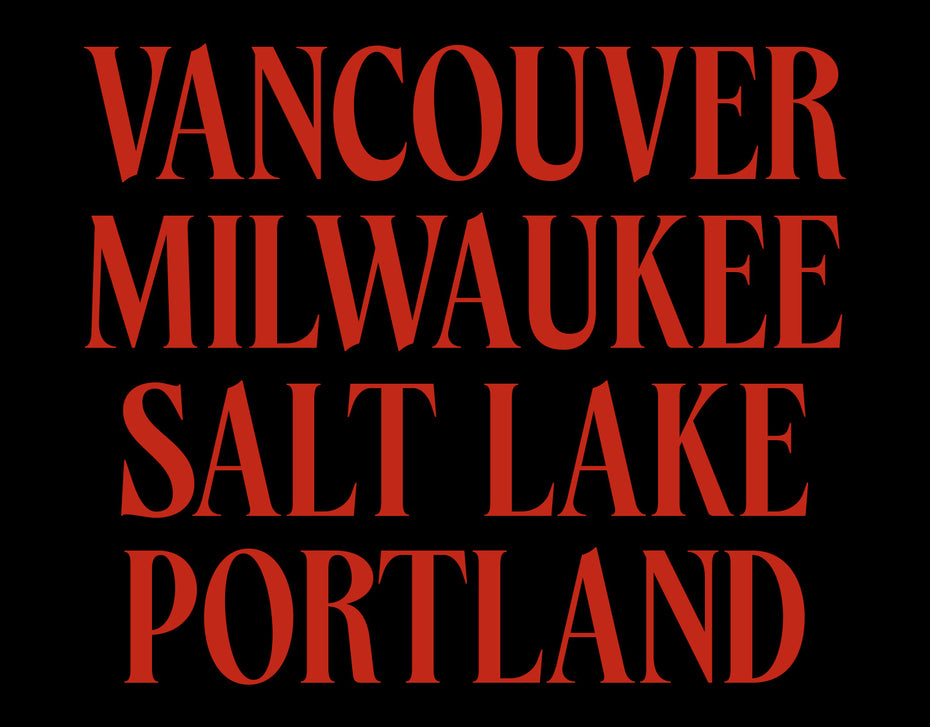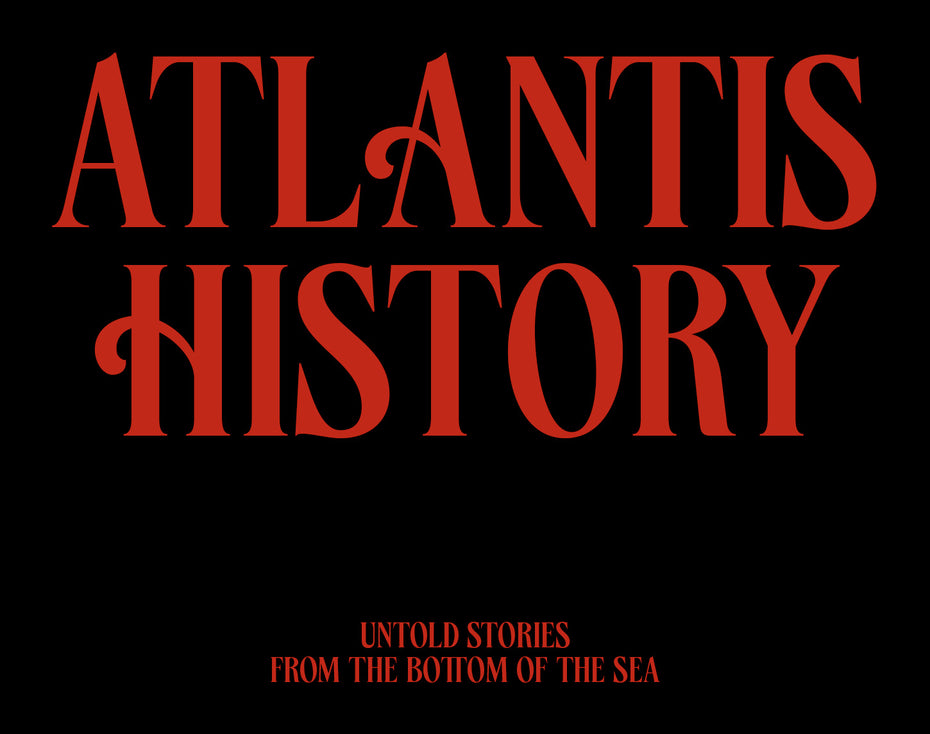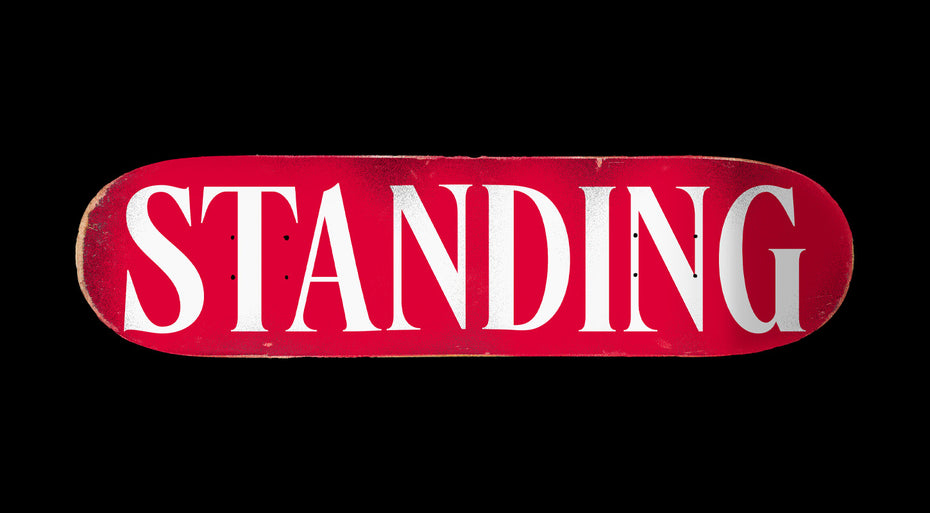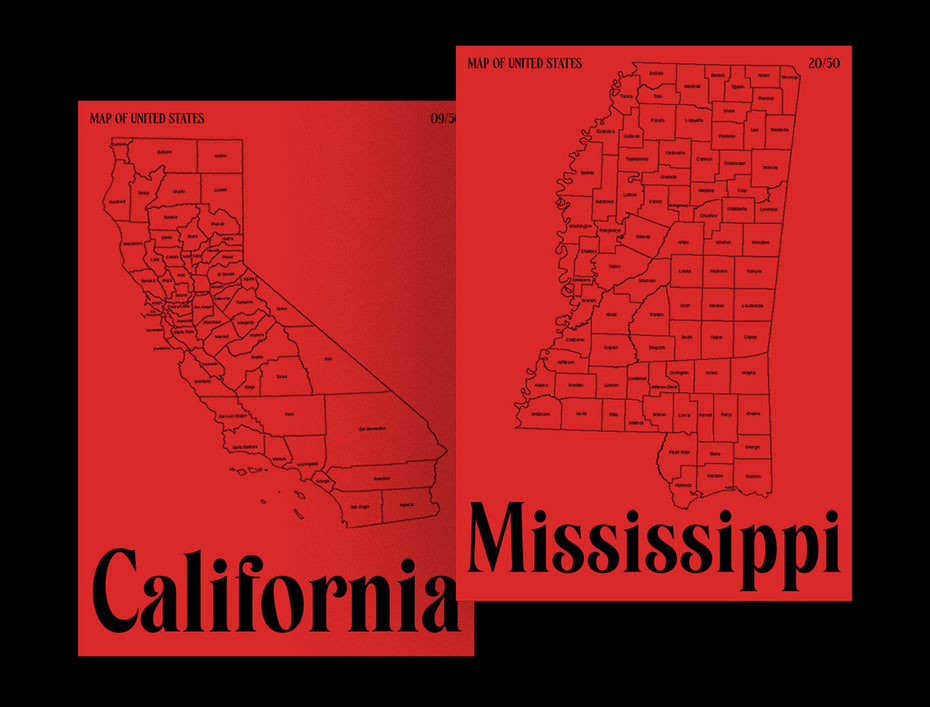
Panthoma
Typecolony - Panthoma Font Vintage City Specimen Poster Panthoma Font high-contrast didone serif typeface on a streetwear skateboard deck specimen with bold display "Standing" in white over red, demonstrating fashion-meets-street design language Panthoma Font contemporary display serif typeface specimen on a cinematic black poster reading "Atlantis History Untold stories from the bottom of the sea", showcasing high-contrast strokes, classical proportions, and expressive curved terminals in deep red Panthoma display serif typeface on a pair of editorial cartography specimens featuring US state maps of California and Mississippi, showcasing both upright and italic styles with classical curved terminals and high contrast on red background